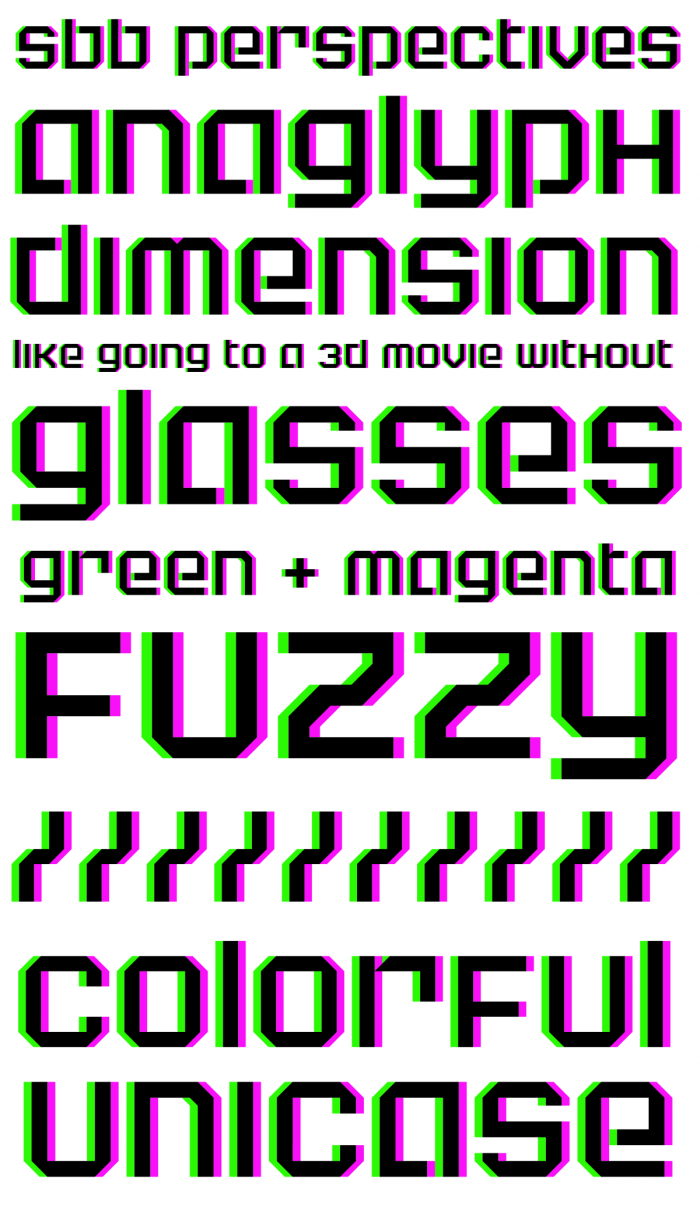
• A font that tries to mimic the anaglyph effect that makes images appear 3D. Red and blue are the most common colors for this technique, but green and magenta work as well. If you had the right pair of 3D glasses, this might look different.
Like going to a 3D movie without glasses 😀
Great effect and attractive lettershapes.
Why is it always the same uppercase and lowercase